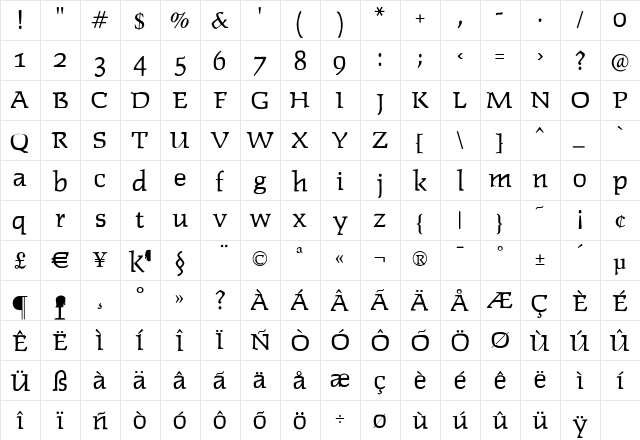
Lipsiantiqua Regular
Design Context for Lipsiantiqua Typeface
Lipsiantiqua offers clean, dependable letterforms without strong stylistic allegiance, making it a practical choice for designers who need flexibility.
Pro Tip: Use Lipsiantiqua in both headline and body roles to test its range before committing to a single application.